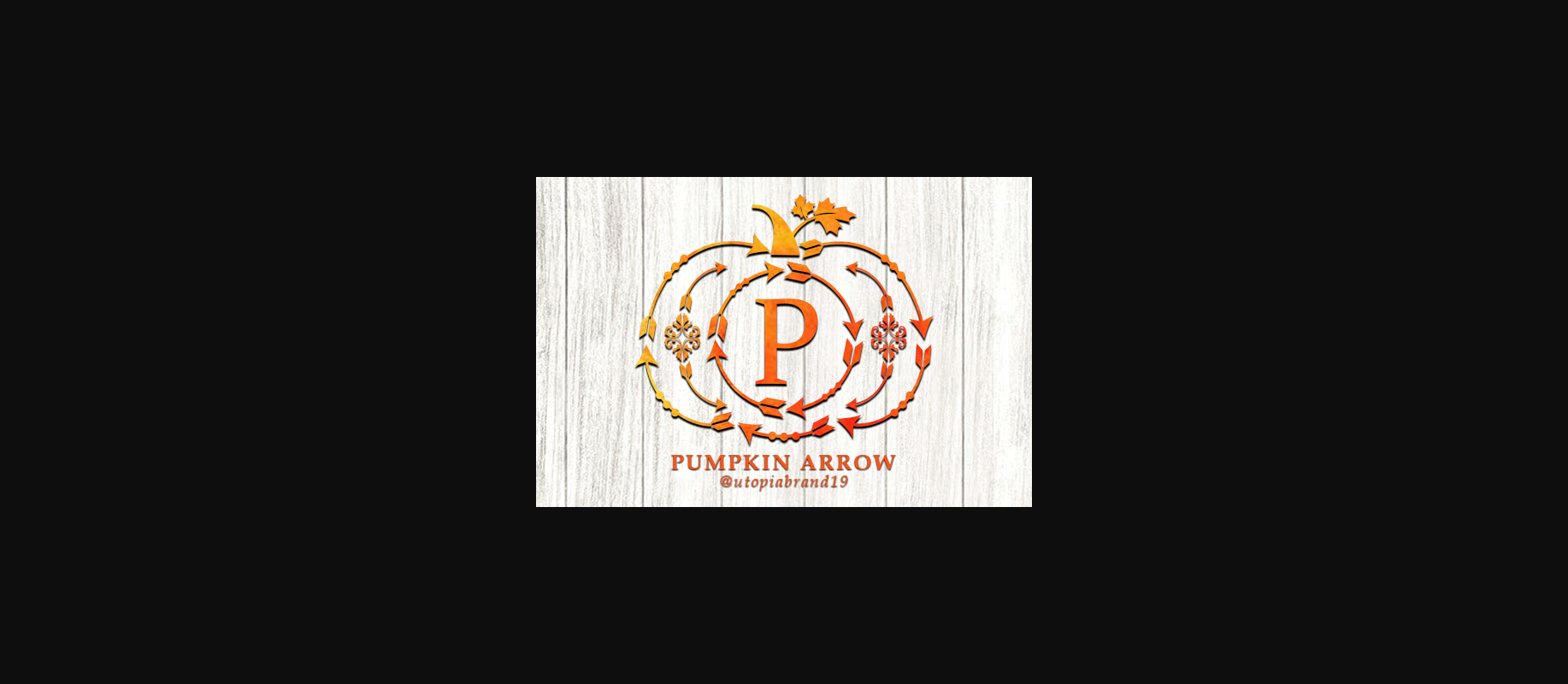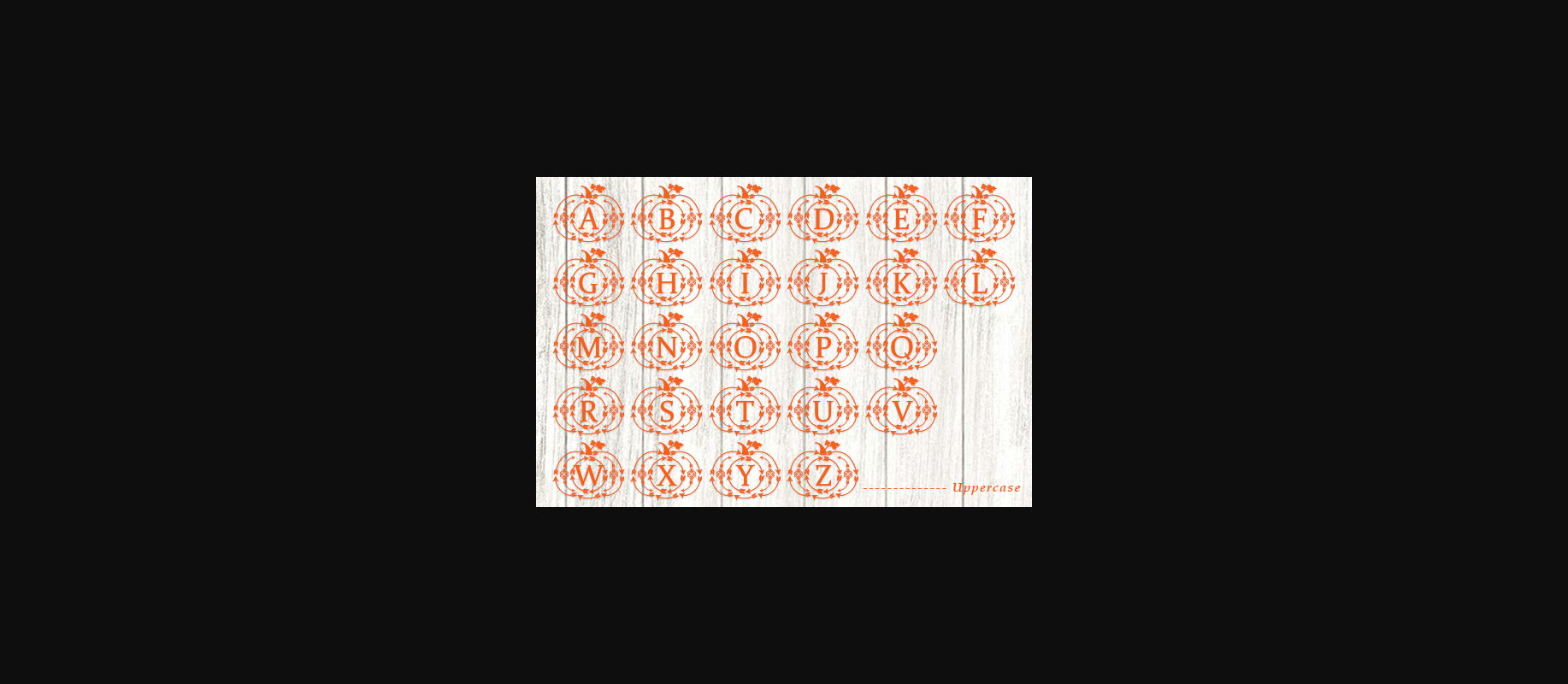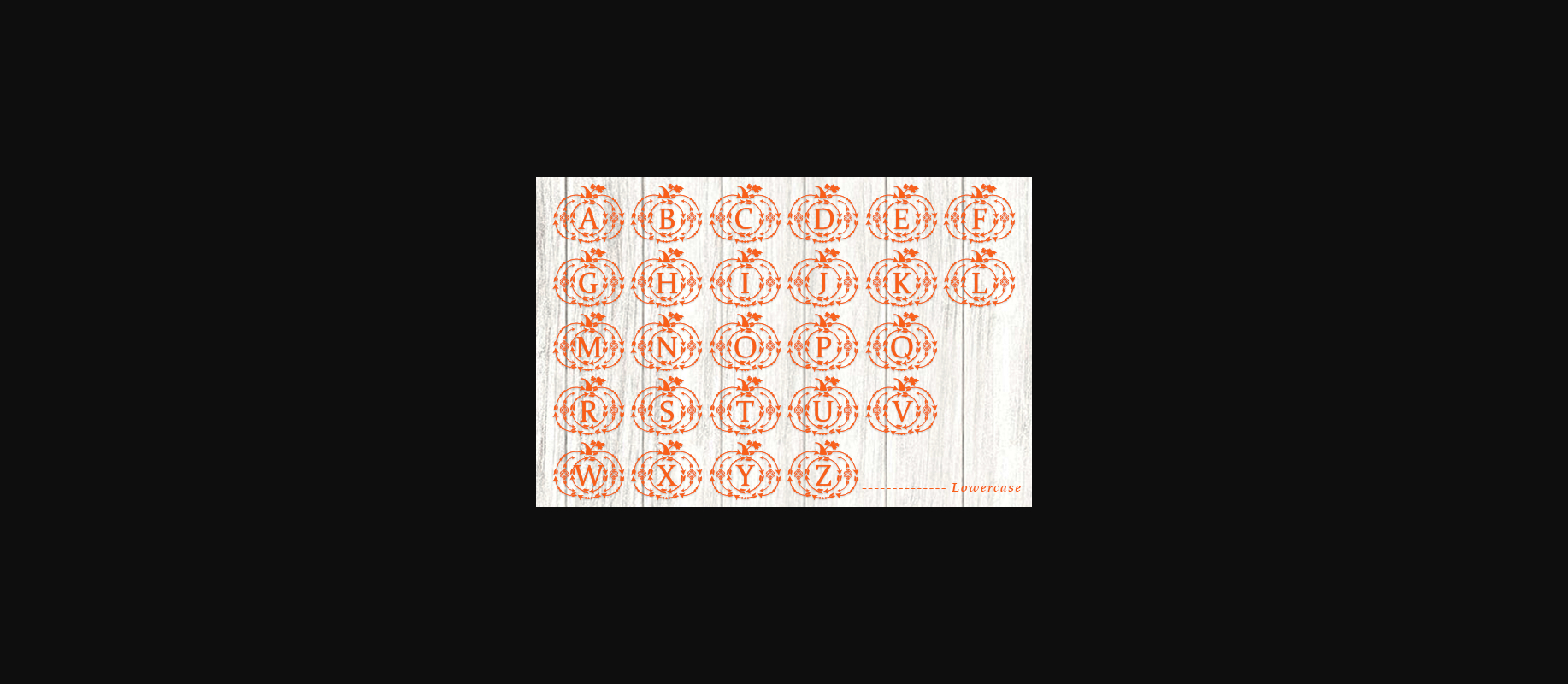
About Pumpkin Arrow Font
Pumpkin Arrow is a refined decorative font, featuring charming ornaments. Fall in love with its genuine feel and use it to create ravishing wedding invitations, beautiful stationary art, eye-catching social media posts, and cute greeting cards.